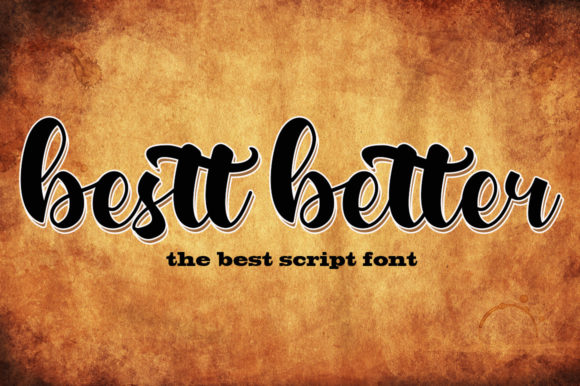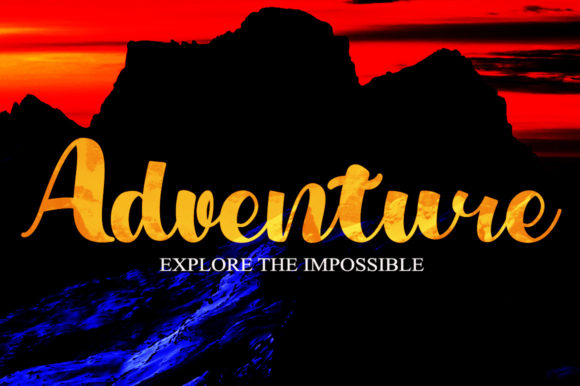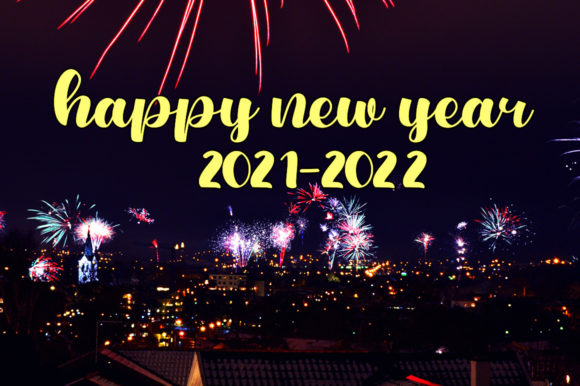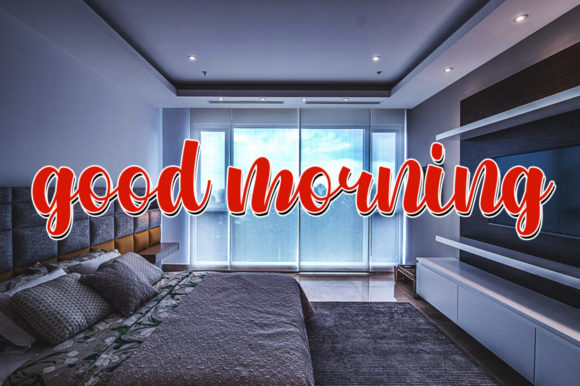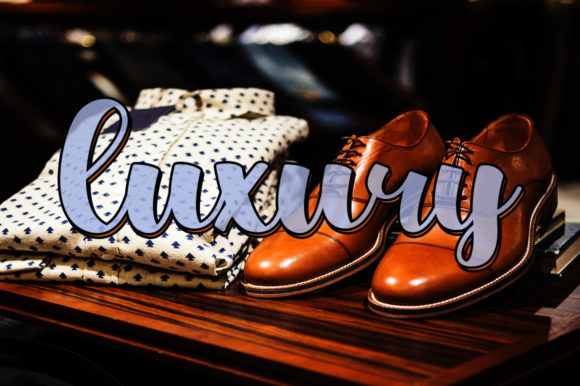
Bestt Better Font
About Bestt Better Font
Bestt Better is a chic script font that can be used in a wide range of aspects. It can be added to labels, t-shirts, promotional banners, magazines, and so much more ideas.